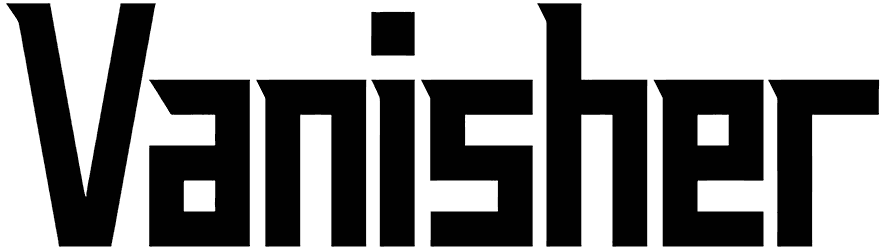
Vanisher Font
When you use a car font like the present offer, the final show will reflect a strong and heavy vibe. Vanisher font’s characters have a bold and condensed form, which is going to be an apt item for a racing game design. This industrial font doesn’t support numerals and punctuation marks, but covering two versions will make up for this lack.